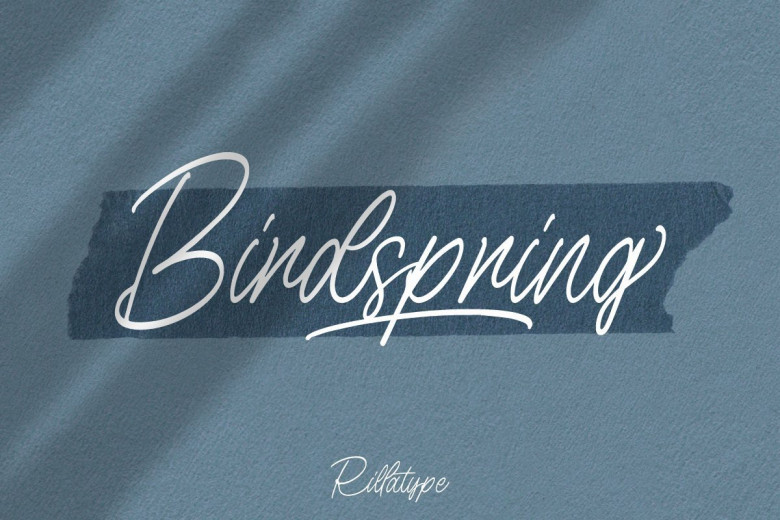
Birdspring Handwritten Signature Font
Introducing, Birdspring Signature, A signature font that can meet your needs to make a handwriting that has strong characteristics. This font is perfect for use in branding, wedding invitations, packaging, and so on.
This font also equipped with up to 14 ligatures that will make every word you writes more eye catching. This font is free for PERSONAL USE. Link to purchase full version and commercial license: HERE